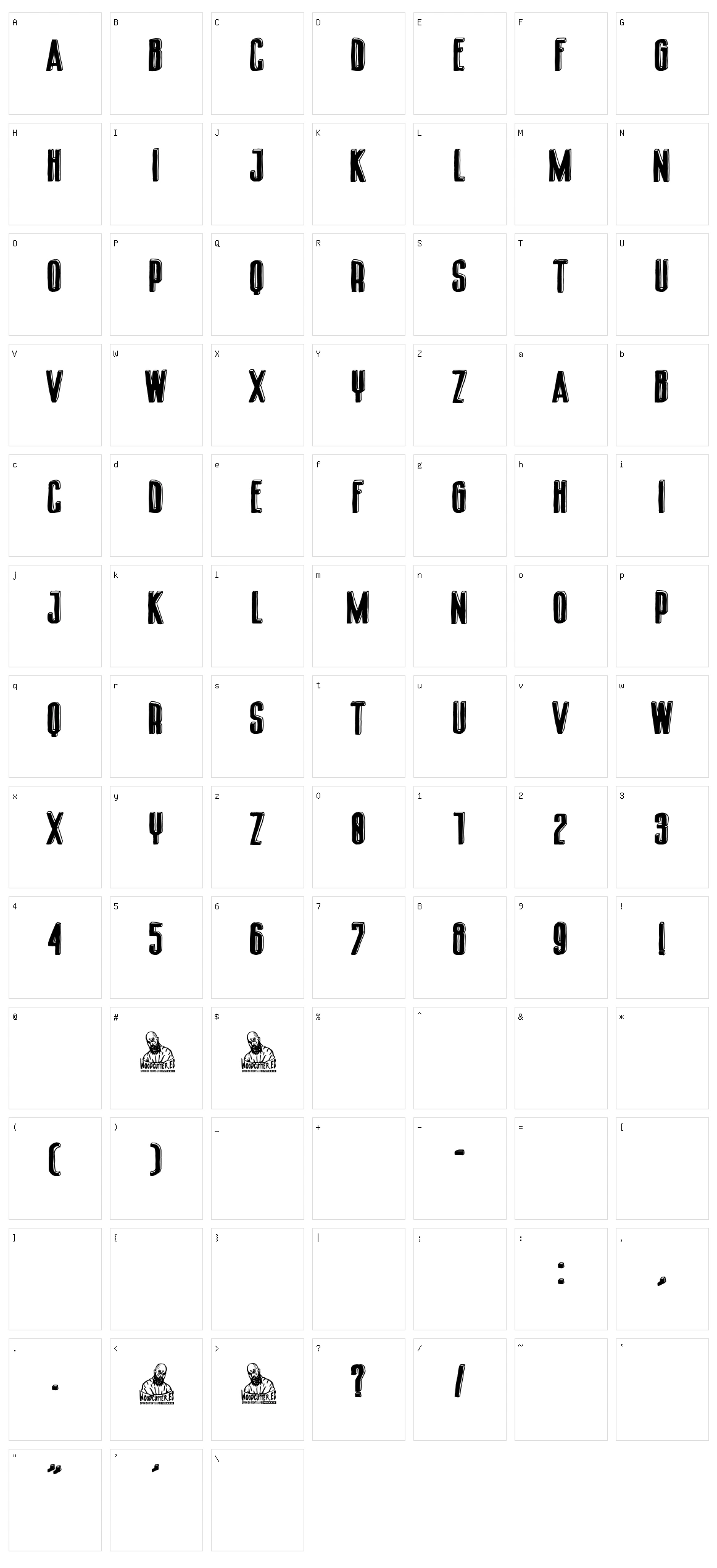
The free font Comedy Channel 01 is carefully designed by Woodcutter, showcasing a thoughtful balance of creativity and usability and falls under the Cartoon font style. When you download the ZIP file, it contains only 58.06 KB of font files, making it lightweight and quick to download. Please review the license details below to understand permitted usage and distribution rights. If license information is not available, we recommend using this font for personal projects only or contacting the author directly for commercial usage permissions.